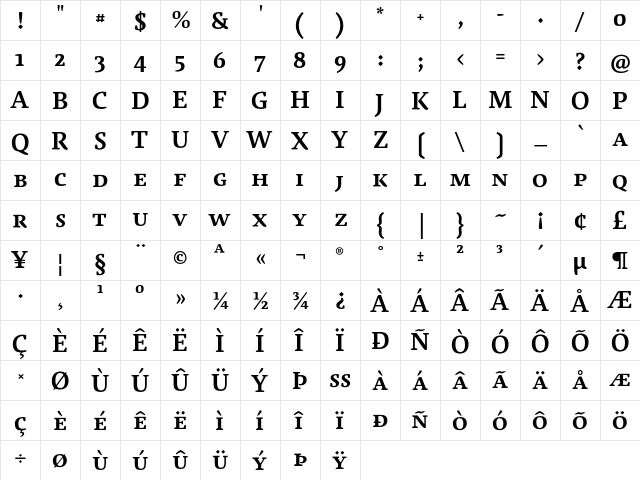
Agendatype SmallCaps Bold
| Foundry | FONTFARM: K.F. Oetzbach und Natascha Dell, Aachen, Germany |
| Designer | FONTFARM: K.F. Oetzbach und Natascha Dell, Aachen, Germany |
Design Context for Agendatype Typeface
Agendatype is a composed and adaptable typeface that performs quietly and consistently across a wide range of design contexts. Its bold stroke weight gives it real presence on the page.